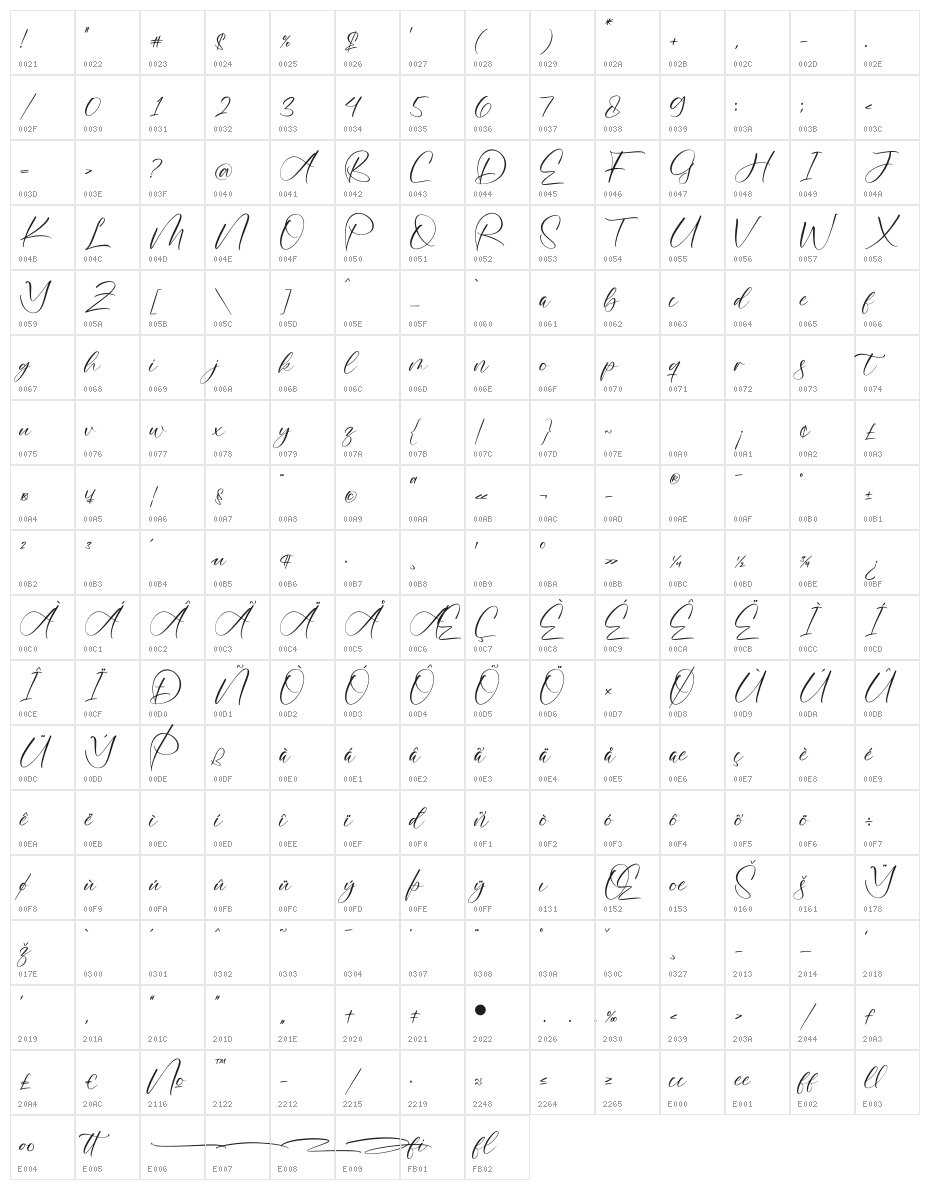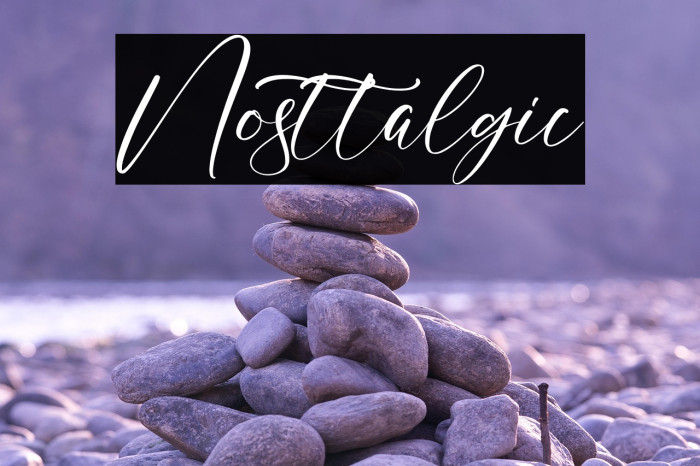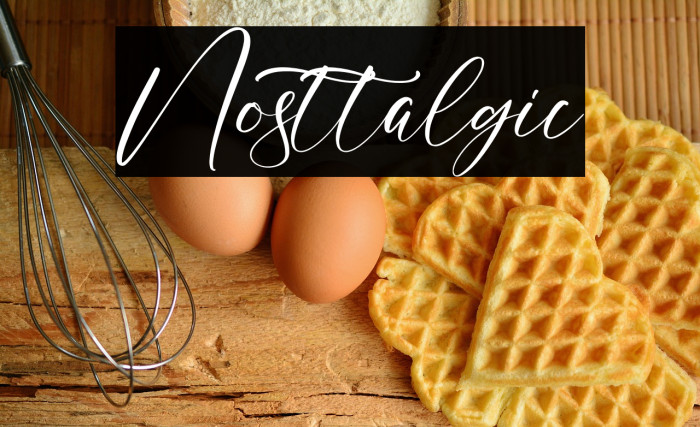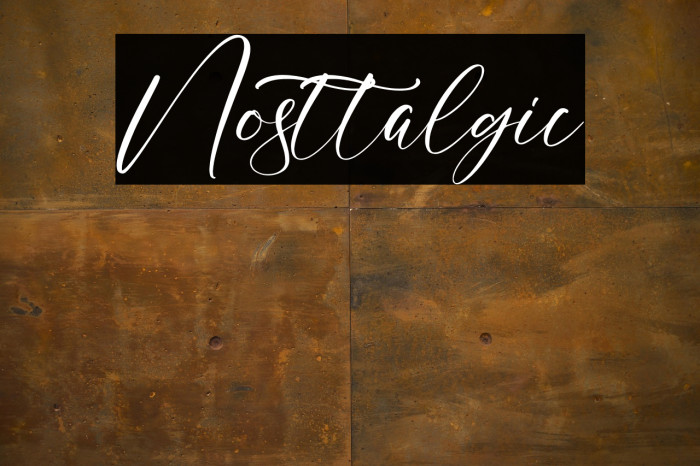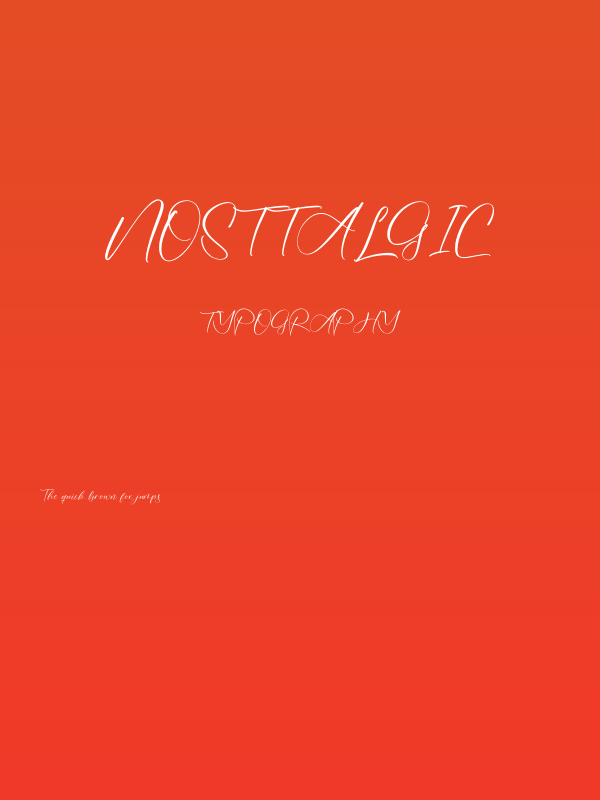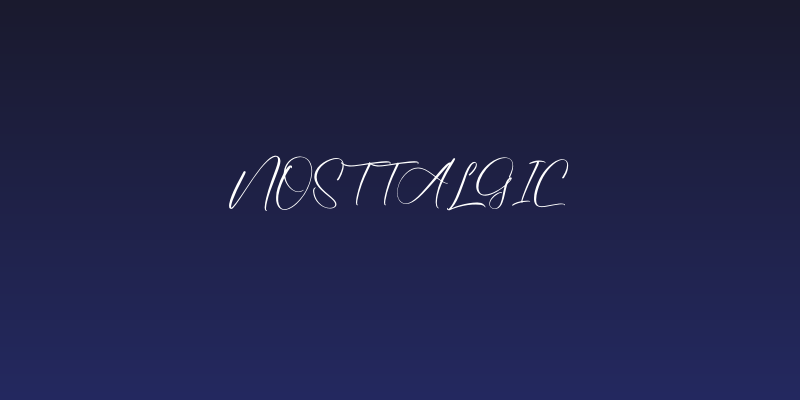
Nosttalgic Font
Nosttalgic Description
This elegant script font exudes a sense of sophistication and fluidity, characterized by its graceful, flowing lines and delicate curves. Each letter is intricately designed with a calligraphic touch, making it ideal for projects that require a personal, handwritten feel. The uppercase letters are particularly ornate, with sweeping ascenders and descenders that add a touch of drama. The lowercase letters maintain a consistent style, ensuring readability while retaining the font's artistic flair. The numerals and special characters are equally well-crafted, seamlessly integrating with the overall aesthetic. This font is perfect for creating invitations, greeting cards, or any design that seeks to convey elegance and charm.
| Overall Style | Elegant, Calligraphic |
| Use Case | Invitations, Greeting cards, Branding |
| Proposed Projects | Ideal for wedding invitations, greeting cards, branding, and elegant stationery. |